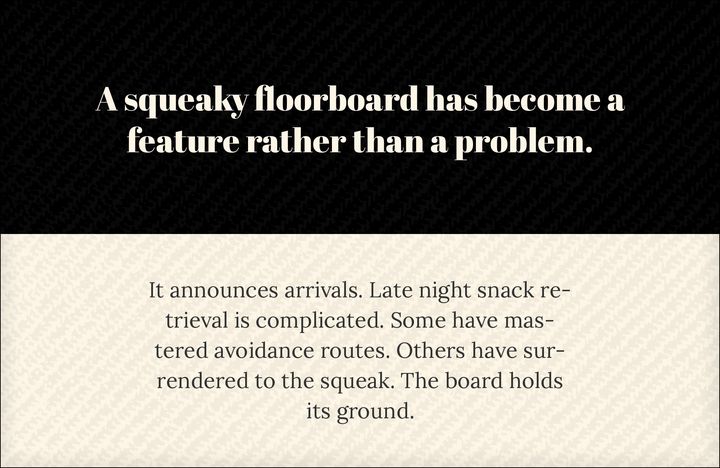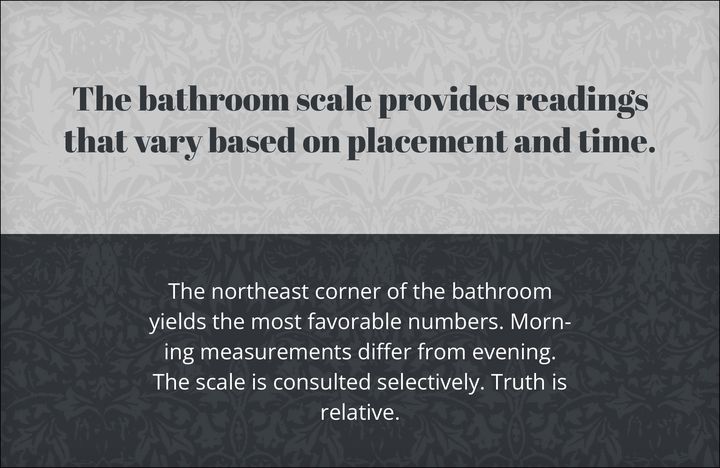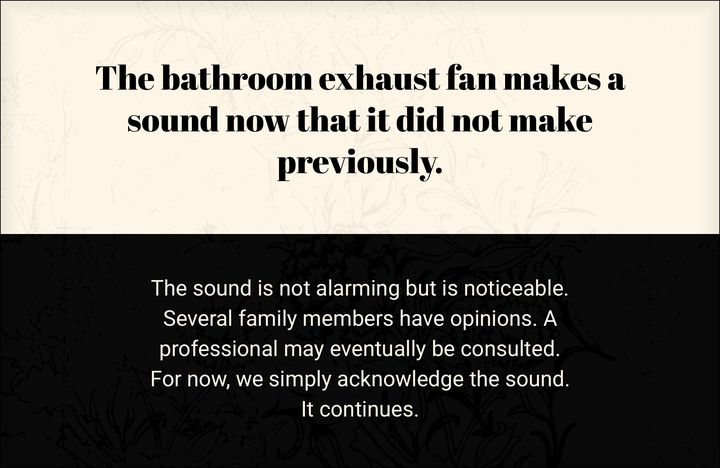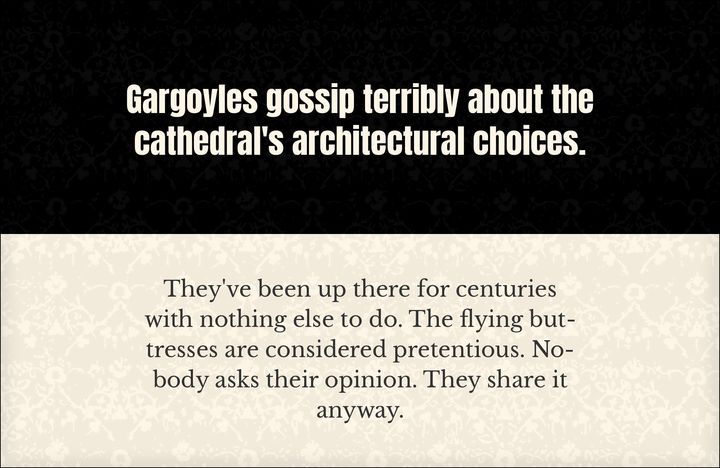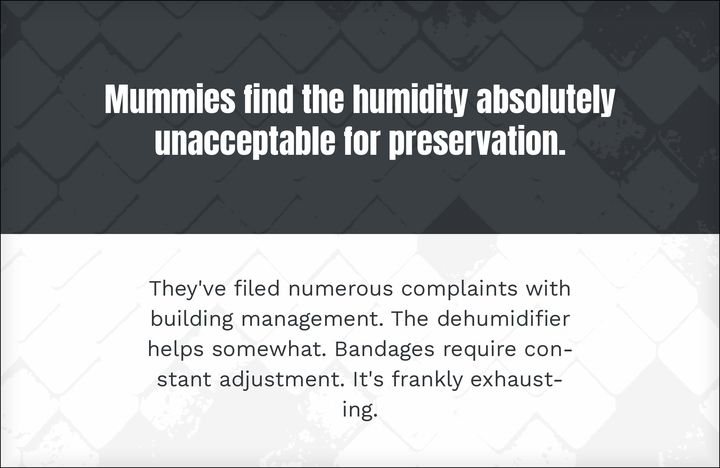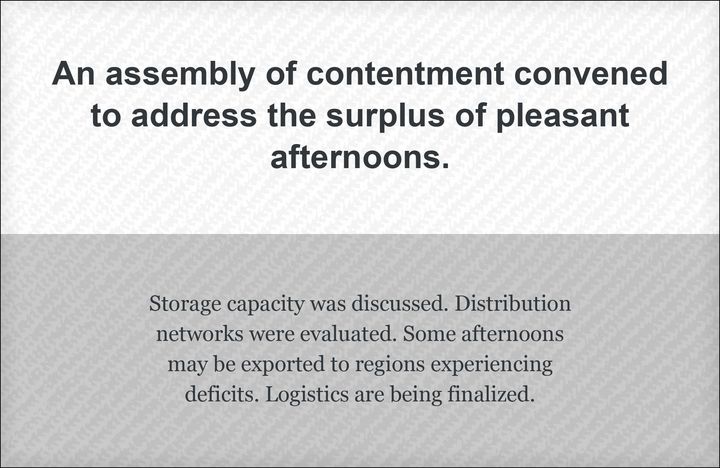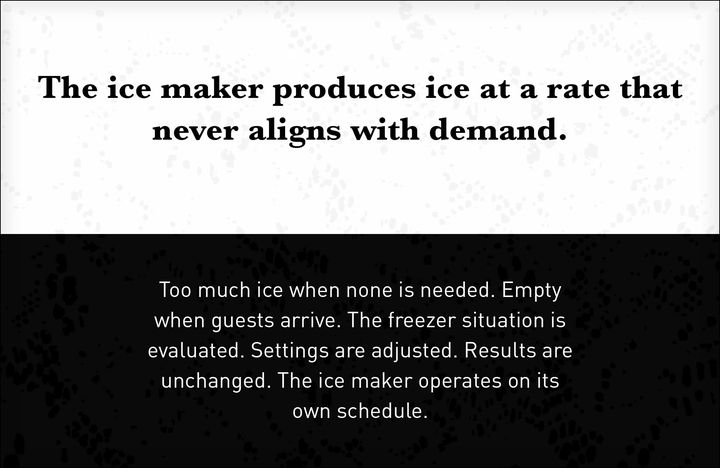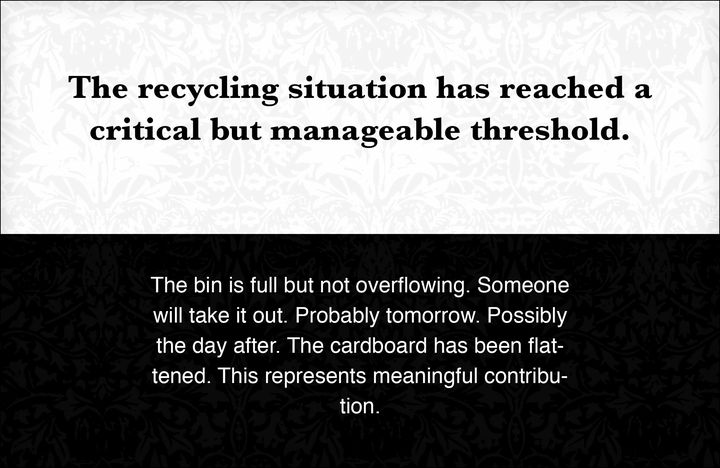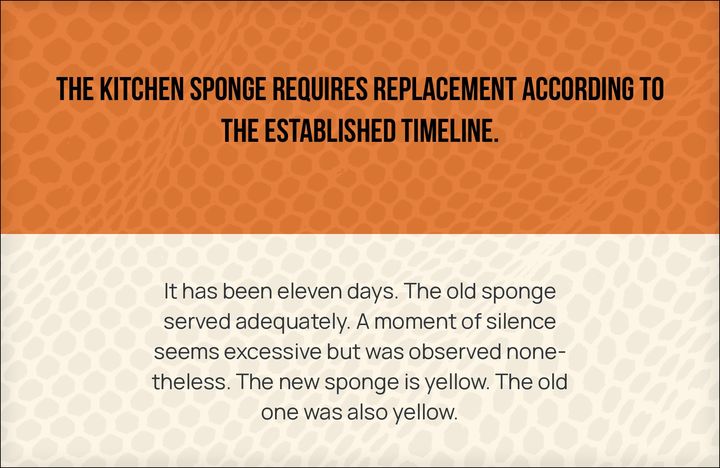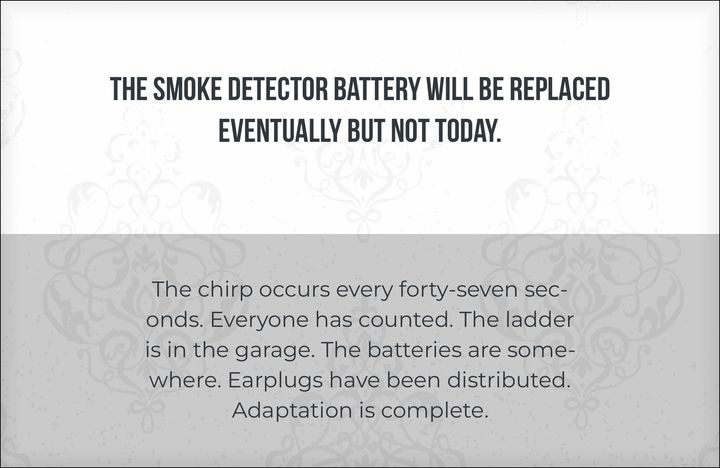
Font Combinations: The Complete Guide to Font Pairings
The safest font combination is a serif for one job and a sans serif for the other, with matching x-heights and one clear contrast in weight or size. Twelve pairs I recommend without hesitation are below, starting with Playfair Display + Source Sans Pro and Inter + Lora. This guide shows 109 font pairings in real rendered specimens, the seven rules behind them, the 3-font rule, and every one of the 81 fonts on BonFX with its best partners.
Font Combinations: the complete guide to font pairings from BonFX
Font combinations are the fastest way to make a layout look designed instead of typed. Two typefaces with the right amount of contrast give a page hierarchy, rhythm, and a voice before anyone reads a word. The wrong two fight each other, and no amount of spacing or color will fix it. This page shows you more than a hundred font pairings that work, rendered from the actual font files, and explains the small set of rules that make them work. It is meant to be the one exhaustive resource on the subject: every kind of pairing, every common use, the free Google Fonts pairs, the classic print pairs, every font on this site with its best partners, and the questions people ask most, in one place. It is long on purpose. Use the index and jump to what you need.
Pen-and-ink pocket-book vignette showing A, b, C, d, E, f, and G as letterform monuments
I have been pairing type professionally since 1992 and collecting combinations on this site since 2009. The Big Book of Font Combinations grew out of that habit, and so did its free-fonts sibling, the Preposterously Huge Book of Google Font Combinations. Everything here comes from that work. The specimens are not mock-ups: each one is set in the real fonts, at real sizes, in a headline-and-body layout. Every pairing links to a deeper article with an alternate layout, the full character sets of both fonts, and the reasons the pair holds together.
If you need an answer today, start with the twelve combinations below. If you want to build your own, read the seven rules. If you already have one font and need its partner, jump to the directory by font at the bottom. Google treats “font combinations” and “font pairings” as the same search, and so do I. Designers say both, so I use both.
12 font combinations you cannot get wrong
Pen-and-ink enlargement of a half-inch-tall book vignette showing the letterforms A and b, from a late-18th-century pocket book
These twelve are the pairs I hand to people who ask “just tell me what to use.” Each one has a clear headline font and a clear body font, enough contrast to read as intentional, and enough shared structure to read as one design. Most are free on Google Fonts. Click any specimen to see the pair in a second layout with the full character sets of both fonts.
Playfair Display and Source Sans Pro font combination: rendered specimen with headline and body text
Playfair Display + Source Sans ProPlayfair Display’s theatrical hairline strokes and dramatic thick-thin contrast find their perfect understated partner in Source Sans Pro. All Playfair Display pairings →
Inter and Lora font combination: rendered specimen with headline and body text
Inter + LoraCalligraphic serif provides warmth against Inter's precision. All Inter pairings →
Roboto and Merriweather font combination: rendered specimen with headline and body text
Roboto + MerriweatherEben Sorkin designed Merriweather for screens, and its tall x-height and sturdy serifs prove it. Against Roboto’s clean geometry, Merriweather provides the classical contrast that makes typography feel complete. All Roboto pairings →
• Minion sans pairs best with Montserrat, Gill Sans, Avenir (14 pairings).
• Montserrat sans pairs best with Lora, Merriweather, Roboto Slab (15 pairings).
• Myriad sans pairs best with Sabon, Adobe Garamond, Helvetica Neue (6 pairings).
• Nunito sans pairs best with Lora, Merriweather, Playfair Display (15 pairings).
• Nunito Sans sans pairs best with Playfair Display, Lora, Merriweather (15 pairings).
• Open Sans sans pairs best with Montserrat, Merriweather, Inter (15 pairings).
• Optima sans pairs best with Helvetica, Palatino, Karla (15 pairings).